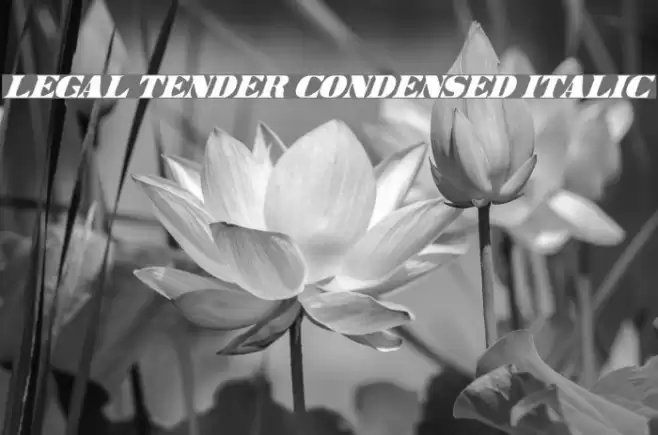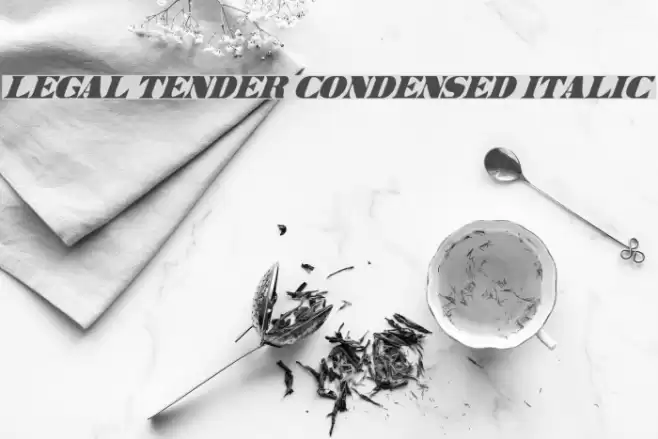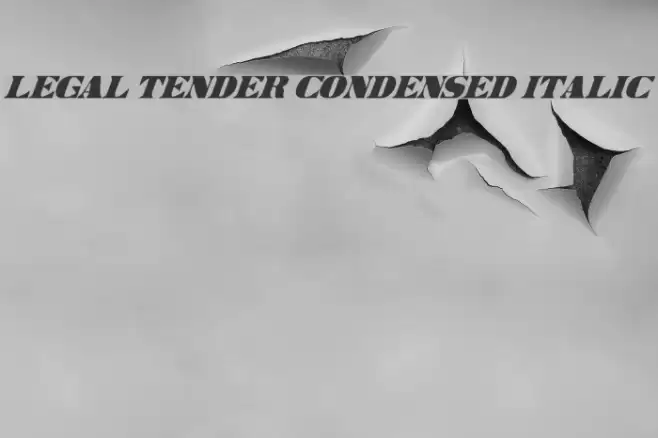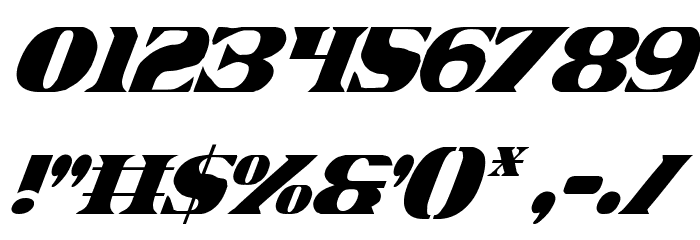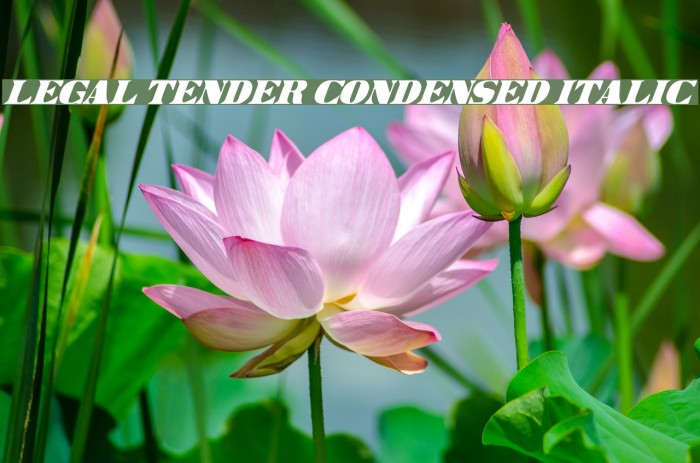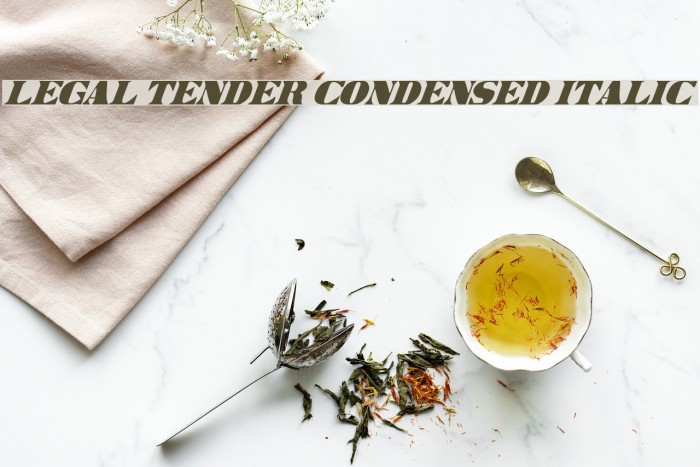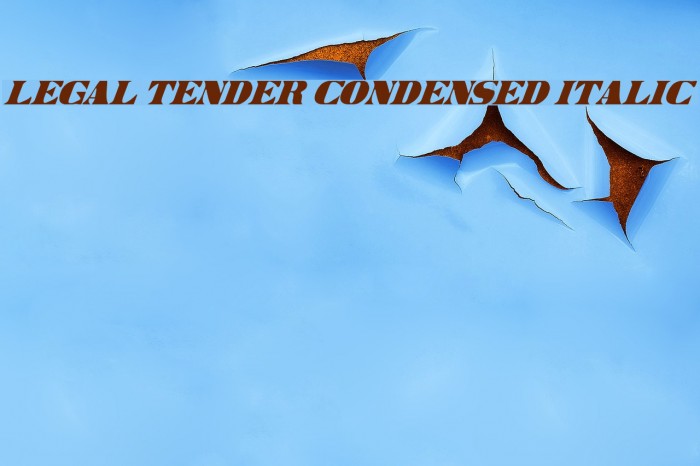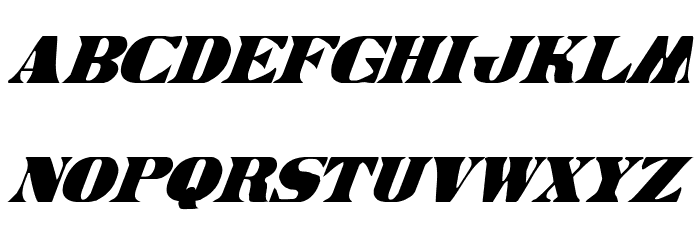
Legal Tender Condensed Italic Font
Legal Tender Condensed Italic Description
This font features a bold and dynamic style with a strong italic slant, giving it a sense of movement and urgency. The characters are condensed, which makes them appear more compact and efficient, ideal for fitting more text into a smaller space. The strokes are thick and consistent, providing a robust and impactful appearance. The uppercase letters are particularly striking, with sharp angles and a slightly aggressive flair. The numerals and special characters maintain the same boldness and slant, ensuring uniformity across all text elements. This font's unique style makes it stand out, making it suitable for attention-grabbing headlines or titles.
A bold, condensed italic font with a dynamic and impactful style from Typewriter fonts.
- Proposed Projects: Ideal for use in advertising, posters, and headlines where a strong visual impact is needed.
- Character Spacing: Tight